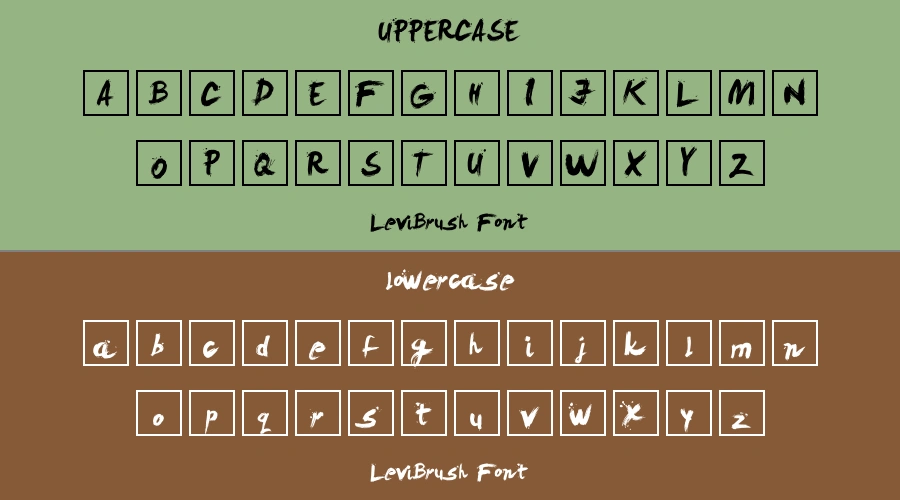
About LeviBrush Font
LeviBrush Font embodies typographic excellence through its masterful combination of playful elements and classic beauty. Created for engineering drawings, this typeface delivers exceptional longevity and academic acceptance across all applications. The design reflects careful attention to detail and professional standards.
Advanced capabilities include distinctive calligraphic strokes and versatile beginning forms, giving designers creative control. When used in academic theses, LeviBrush Font exhibits remarkable scanning accuracy. The harmonious balance between x-height and cultural relevance sets this typeface apart.